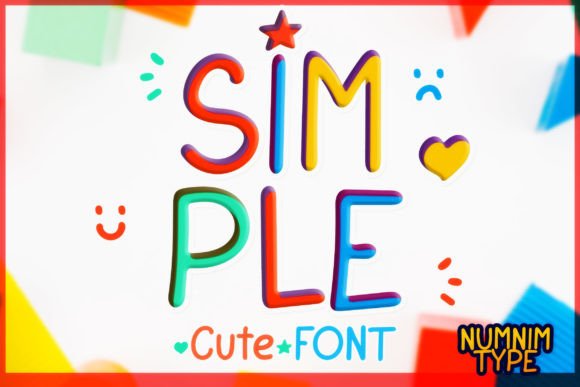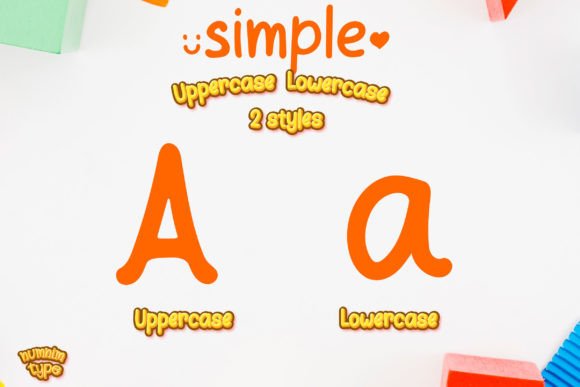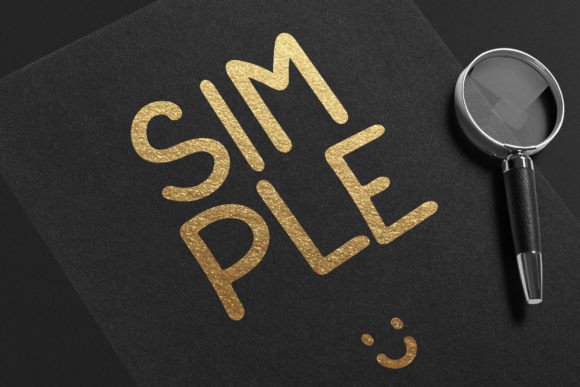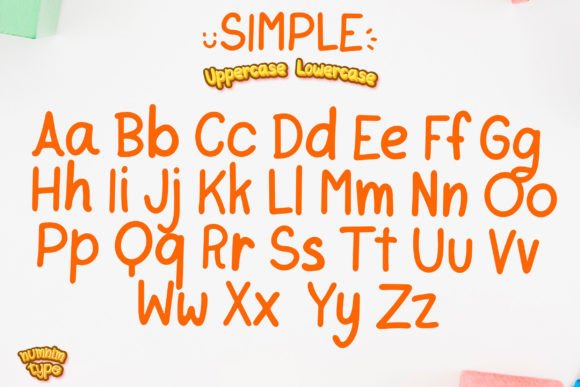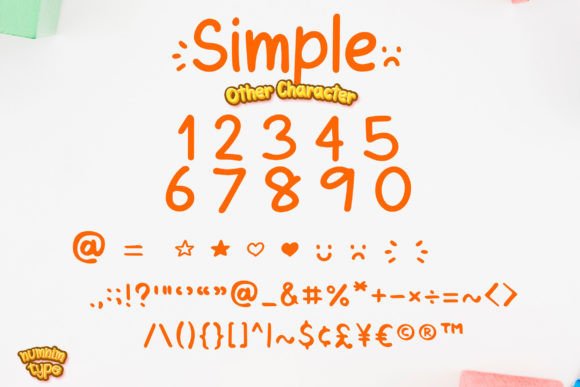
Simple Font
Simple Font : A Cute and Playful Handwritten Font for Creative Projects
Simple is an adorable handwritten font that brings a unique, playful character to your designs. This versatile typeface is perfect for a wide range of creative applications, from stickers and mugs to t-shirts and event cards.
Key Features of Simple Font
• Unique Handcrafted Style: Stands out with its one-of-a-kind appearance
• Cute and Playful Characters: Adds whimsy and joy to your designs
• Versatile Application: Suitable for various projects, including DIY and crafts
Perfect for Multiple Design Projects
Simple’s adaptability makes it an excellent choice for:
• Kids’ event cards and invitations
• Custom merchandise (mugs, t-shirts, ornaments)
• Posters and banners
• DIY crafts and personalized items
• School projects and family-oriented designs
Enhancing Creative Expression
With Simple, you can infuse your designs with a childlike charm and lighthearted expression. Its whimsical aesthetics breathe life into projects, making them more engaging and fun while maintaining clarity and readability.
Ideal for Event Branding
Simple is perfect for creating event branding materials, invitations, and decorations. Its playful nature gives gatherings a fun and inviting atmosphere, ensuring your events stand out.
Simple is more than just a font; it’s a creative tool that brings cuteness, playfulness, and artistic flair to your designs. Whether you’re a professional designer or a DIY enthusiast, Simple offers the perfect blend of charm and versatility. By incorporating Simple into your projects, you can create visually appealing and memorable content that engages your audience. Its youthful energy and whimsical style make it ideal for capturing the essence of childhood and innocence in your designs. Consider pairing Simple with clean sans-serif fonts for contrast or complementing it with other script fonts for a dynamic typographic palette. This versatility allows you to create designs that are both playful and harmonious across various mediums and industries. Embrace the delightful charm of Simple today and watch as it transforms your creative ideas into joyful and engaging designs that spread smiles and positivity!